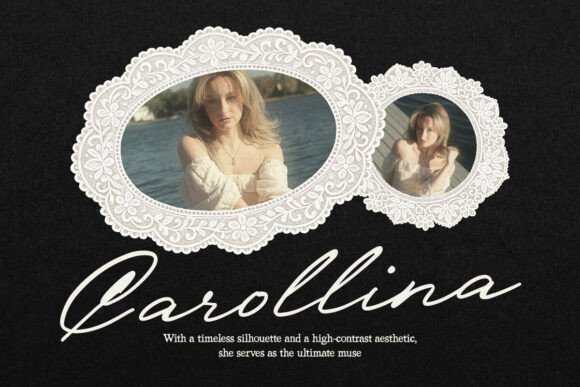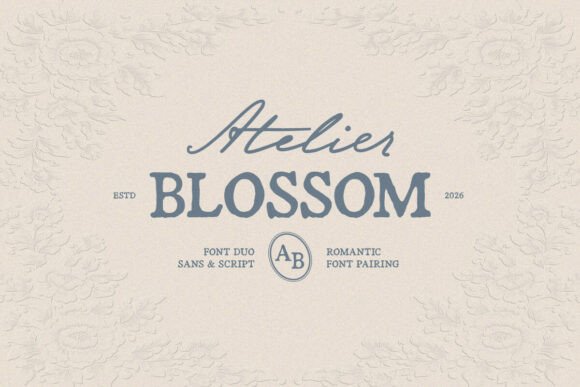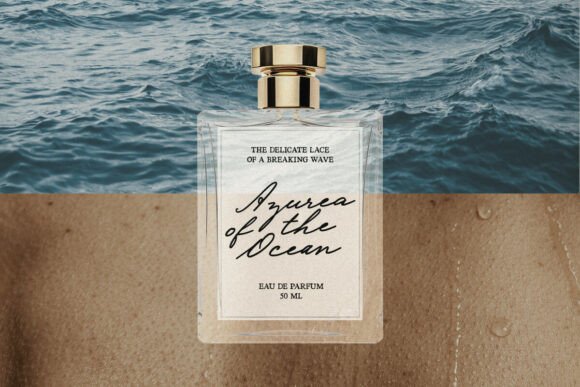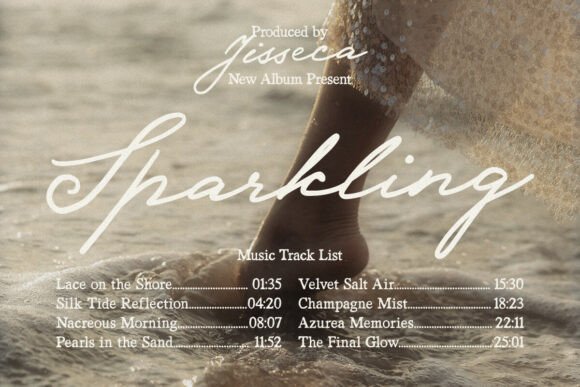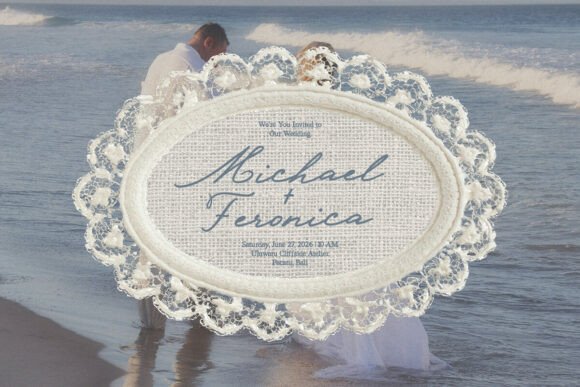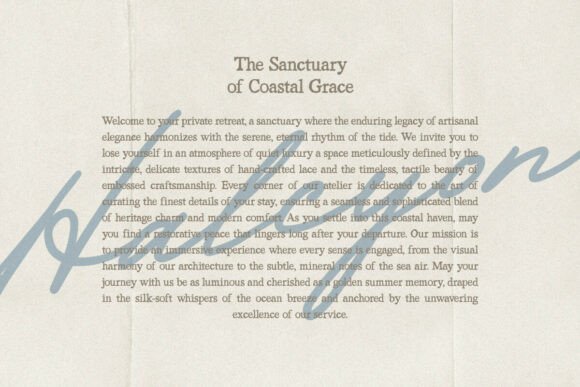
Where Typography Meets Romance
Have you ever found yourself in a creative rut, searching for that perfect font to bring your design to life? Maybe you’re working on a wedding invitation and want to evoke the feeling of a vintage garden on a warm summer day. Or perhaps you’re building a brand identity that exudes elegance and sophistication. Whatever your design project, I’m here to introduce you to a font duo that’s sure to captivate your heart – the Atelier Blossom Font.
This refined font duo pairs a romantic flowing script with a timeless vintage serif, crafted to bring warmth and effortless charm into every design. Whether you’re working on branding, wedding stationery, packaging, or social media, the Atelier Blossom Font offers a versatile typographic voice that feels both intimate and timeless. Its unique blend of elegance and warmth makes it a valuable asset for designers seeking to elevate their work with a touch of sophistication.
Atelier Blossom Font Key Features
- Unique Characteristics: The Atelier Blossom Font features a unique blend of traditional and modern calligraphy styles, with intricate flourishes and elegant letterforms.
Atelier Blossom Font Review
I recently had the chance to work with the Atelier Blossom font, and I must say it’s a lovely addition to any design project. ✨ Here are some of the things that work well:
- It has a unique, hand-drawn feel that adds a touch of elegance to any text.
- The font is well-behaved, with no major issues with kerning or spacing.
- The font may not be suitable for small text sizes, as the details can get lost.
- Some characters, such as the ampersand (&), may not be fully compatible with all systems.
Overall, I’m impressed with the Atelier Blossom font. While it may have some limitations, its unique style and high level of customization make it a great choice for many design projects. I would definitely consider using it again in the future.
Atelier Blossom Font is ideal for creating whimsical and elegant designs, making it perfect for:
– Baby shower and birthday party invitations
– Digital and print-based branding materials
– Personalized stationery and greeting cards